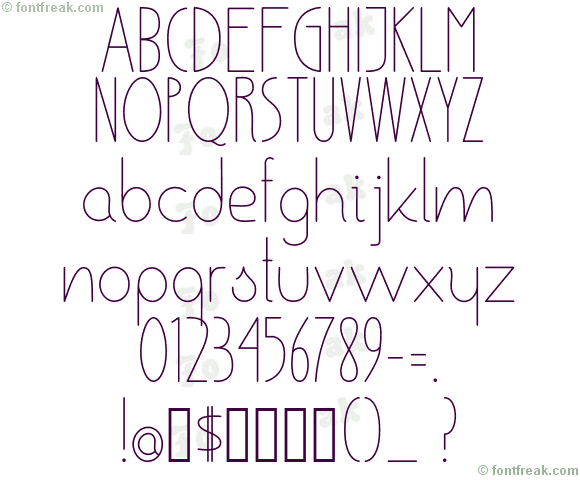
Ensure Medium
About Ensure Medium
Ensure Medium, designed by Manuel Ramos, is a modern sans-serif font that embodies clarity and sophistication. This typeface features a balanced stroke weight, giving it a contemporary yet approachable feel. The clean lines and minimalistic design ensure excellent legibility across various applications. With a consistent medium weight, Ensure Medium strikes a perfect balance between boldness and subtlety, making it an ideal choice for a wide range of projects.
The visual characteristics of Ensure Medium include smooth curves and a uniform spacing that enhances readability. Its lack of excessive decorative elements allows it to fit seamlessly into both professional and casual contexts. This versatility makes it particularly suited for use in corporate branding, website design, and editorial layouts. The font is perfect for wedding invitations, where a touch of elegance is essential, as well as for restaurant menus that require a stylish yet easy-to-read typeface.
Graphic designers and small business owners will find Ensure Medium especially appealing for creating promotional materials, advertisements, or even social media graphics. Content creators can leverage this font for blog headings or video titles, as it conveys a modern aesthetic that resonates with today's audiences.
What truly sets Ensure Medium apart is its ability to adapt to various design needs while maintaining its distinctive charm. Whether you're crafting a sleek business card or a vibrant poster, this font offers the versatility and clarity necessary to make a lasting impression. Don’t miss the opportunity to enhance your projects with this unique typeface. Ensure Medium font free download is available, allowing you to incorporate its elegant style into your designs effortlessly.